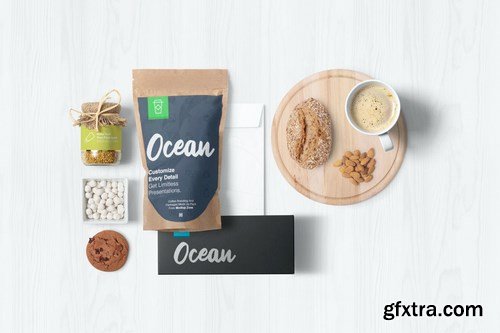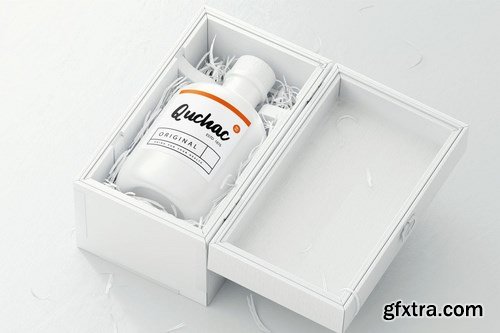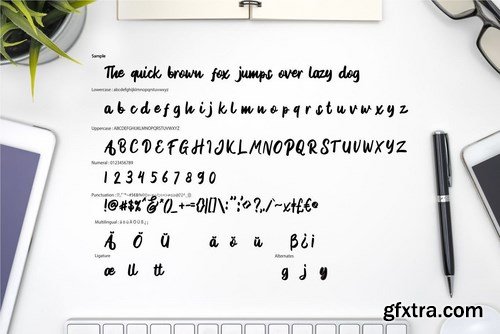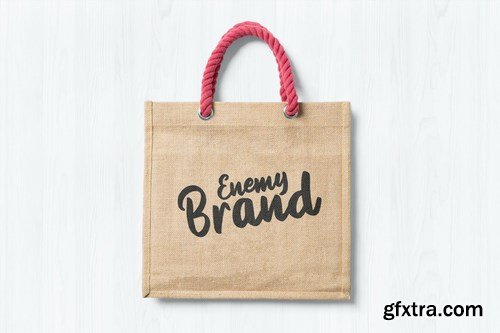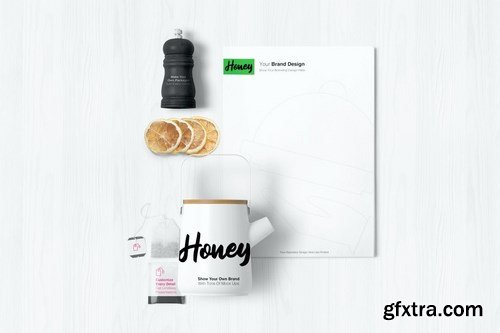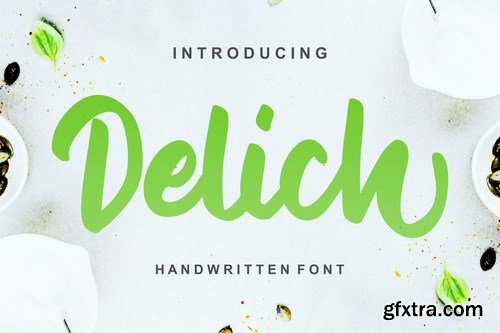
Delich Handwritten Script Font
Delich | Handwritten Script Font with a calligraphy style, So beautiful on invitation like greeting cards, branding materials, business cards, quotes, posters, and more!
Tons of glyphs
Alternates and Ligatures
Fonts include Multilingual Support